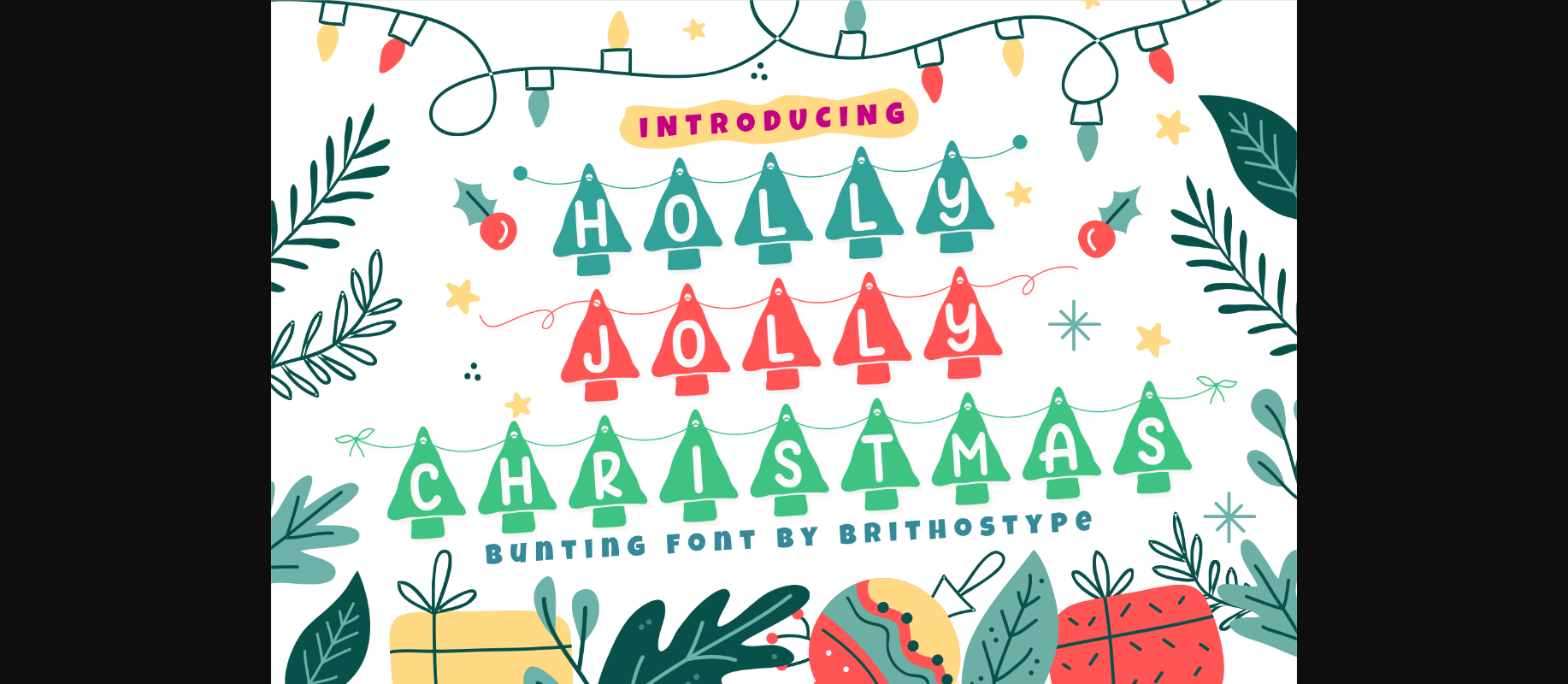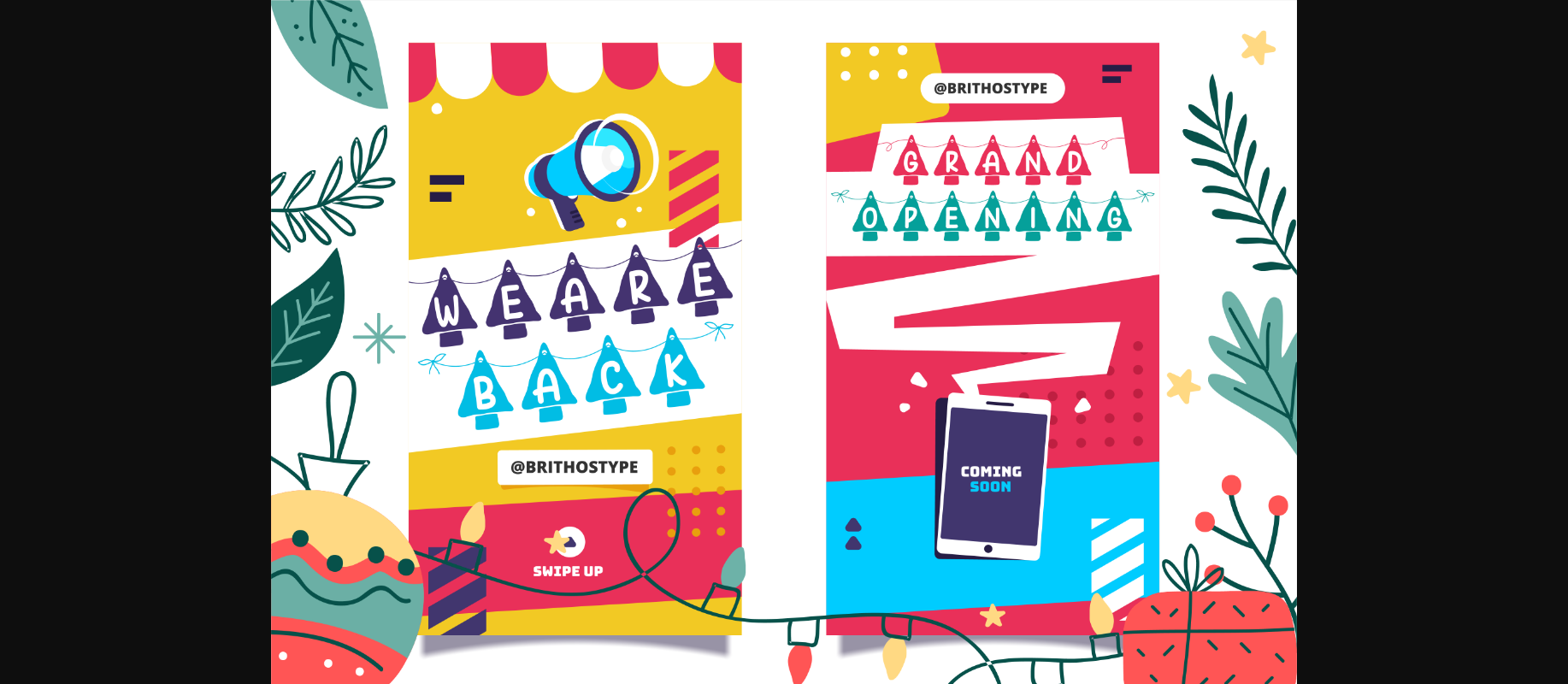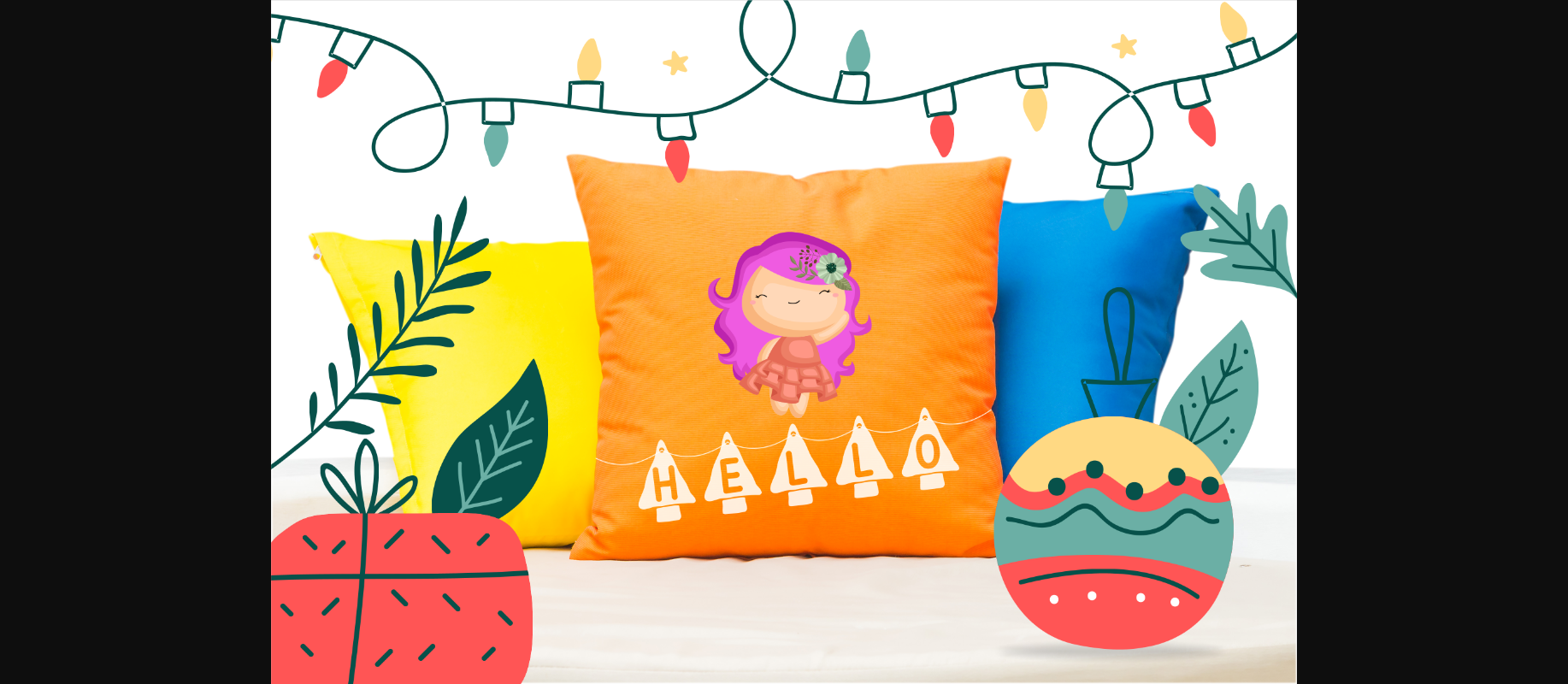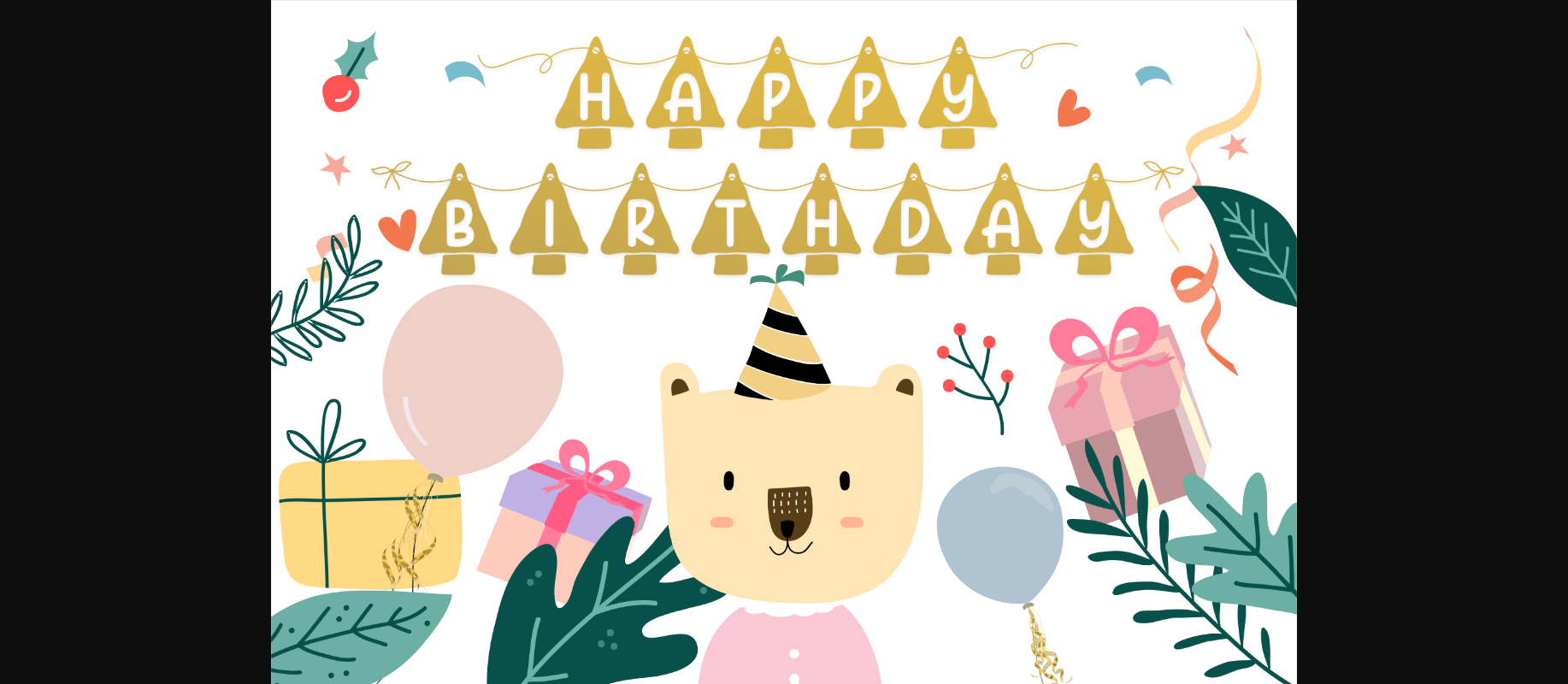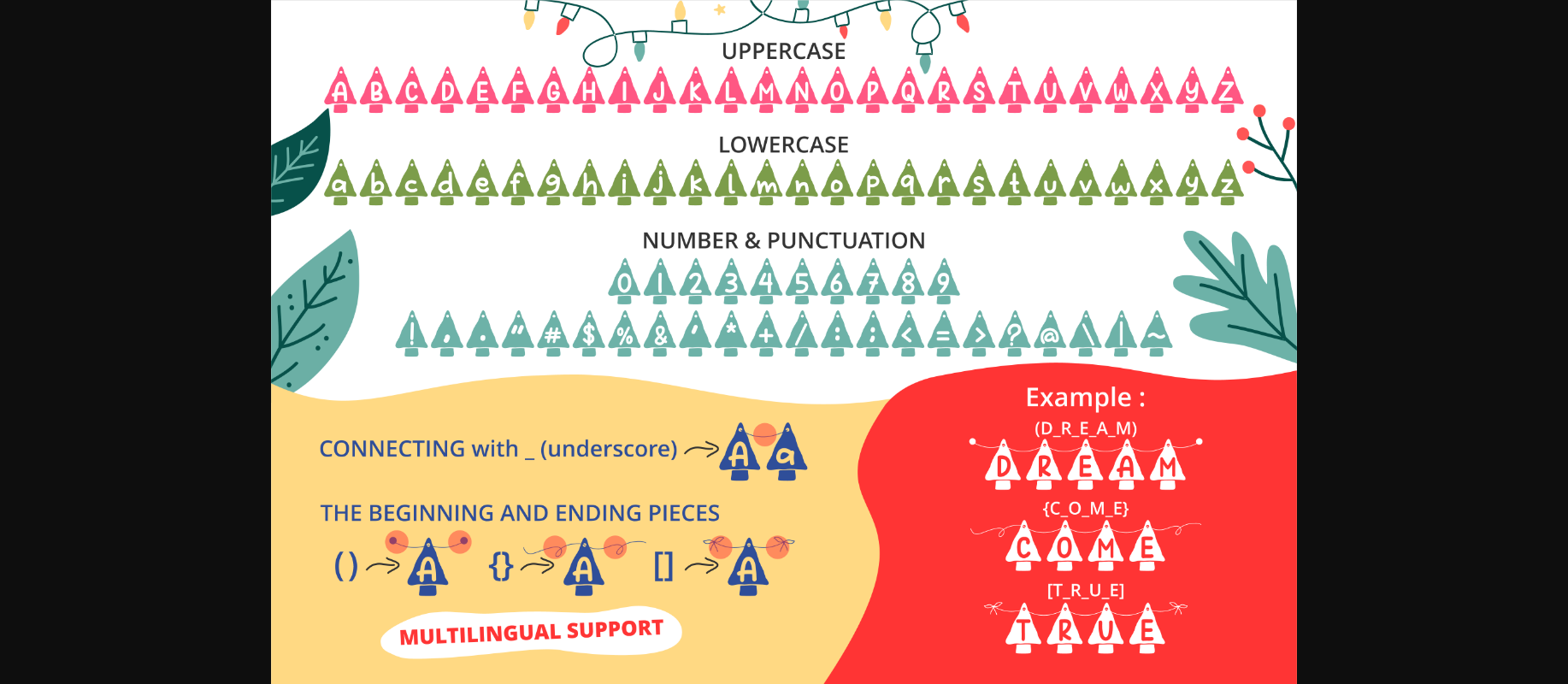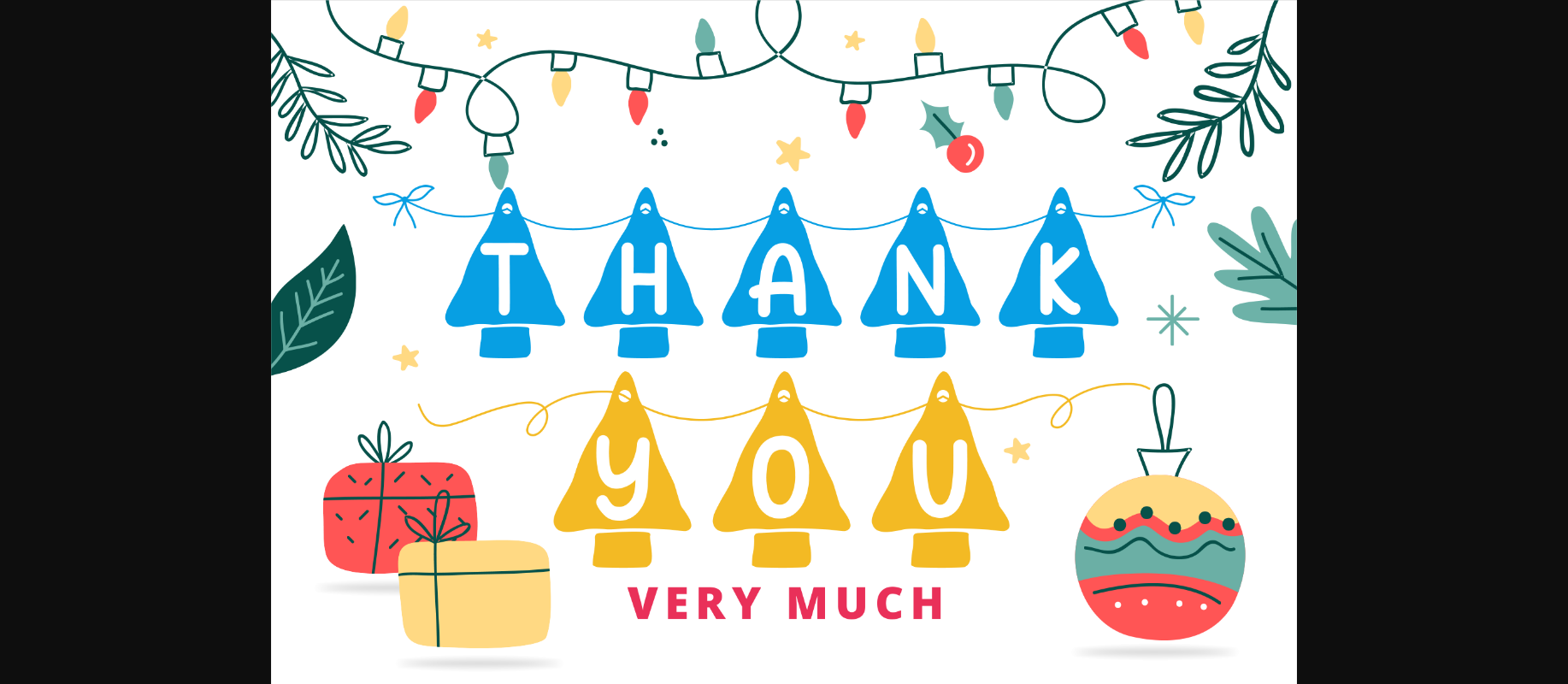
Holly Jolly Christmas is a beautiful winter-themed decorative font. This is the perfect font for making original and outstanding Christmas cards or any holiday related designs.